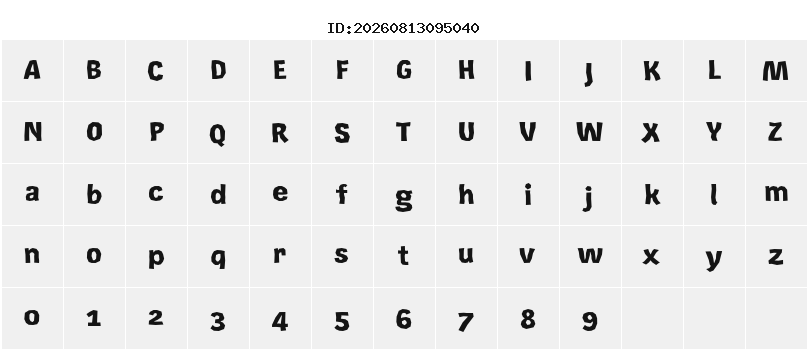
• Font Name: Rekord Black
• Font ID: Rekord Black
• Full Font Name: Rekord Black
• PostScript Name: RekordBlack
• Character Count: 211
About Rekord Black.ttf
Rekord Black.ttf is a modern, elegant sans-serif font designed for ultimate readability and visual harmony. Perfect for branding, headlines, web design, and print materials.